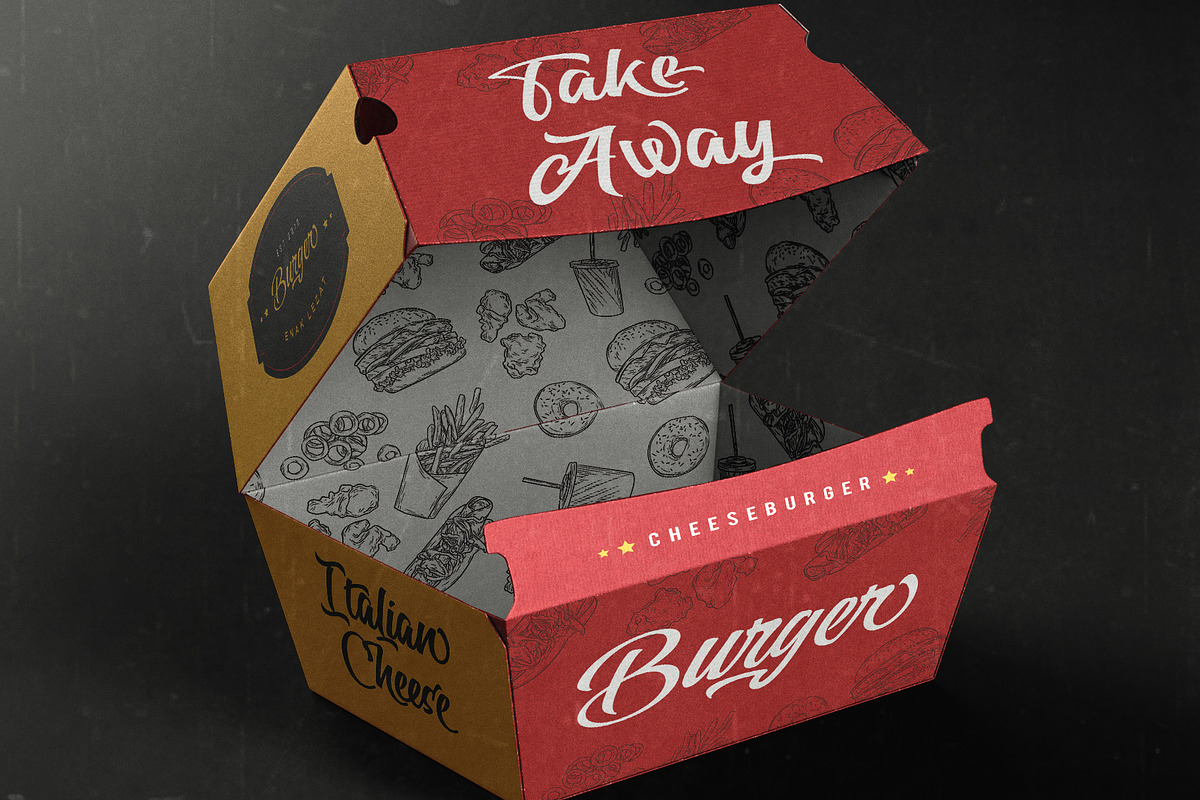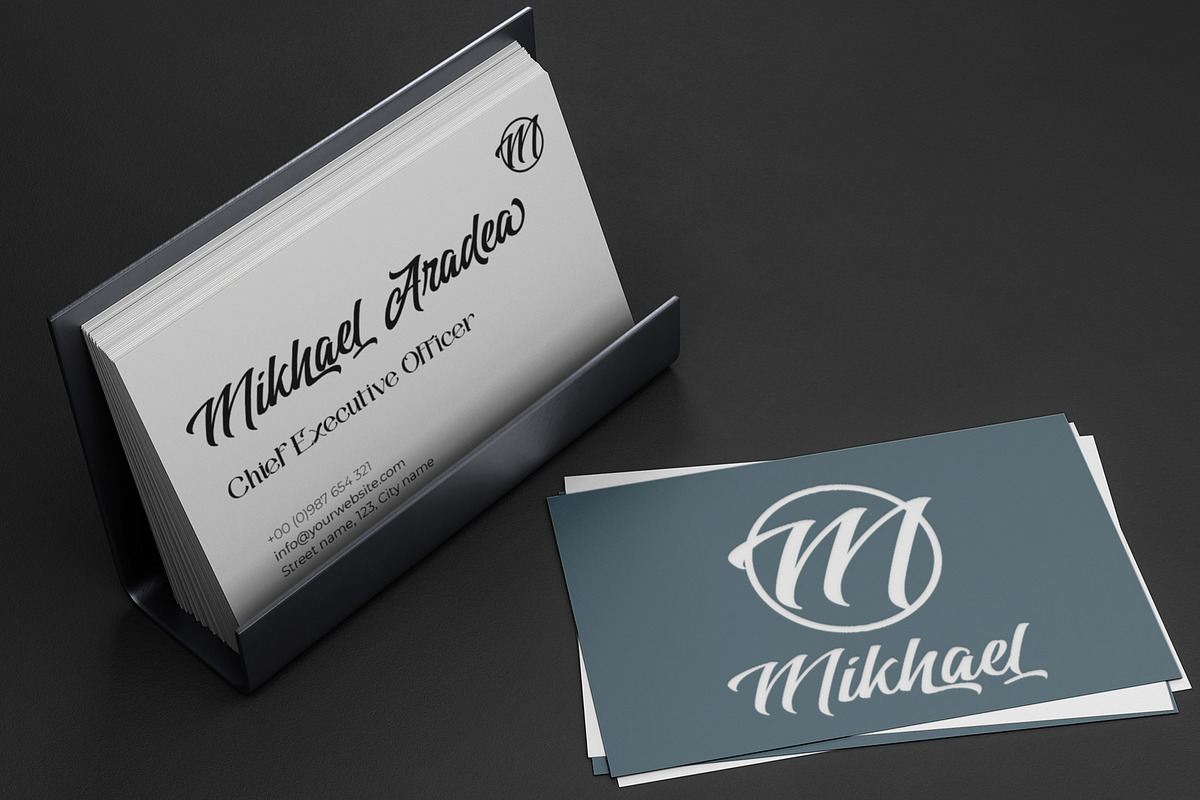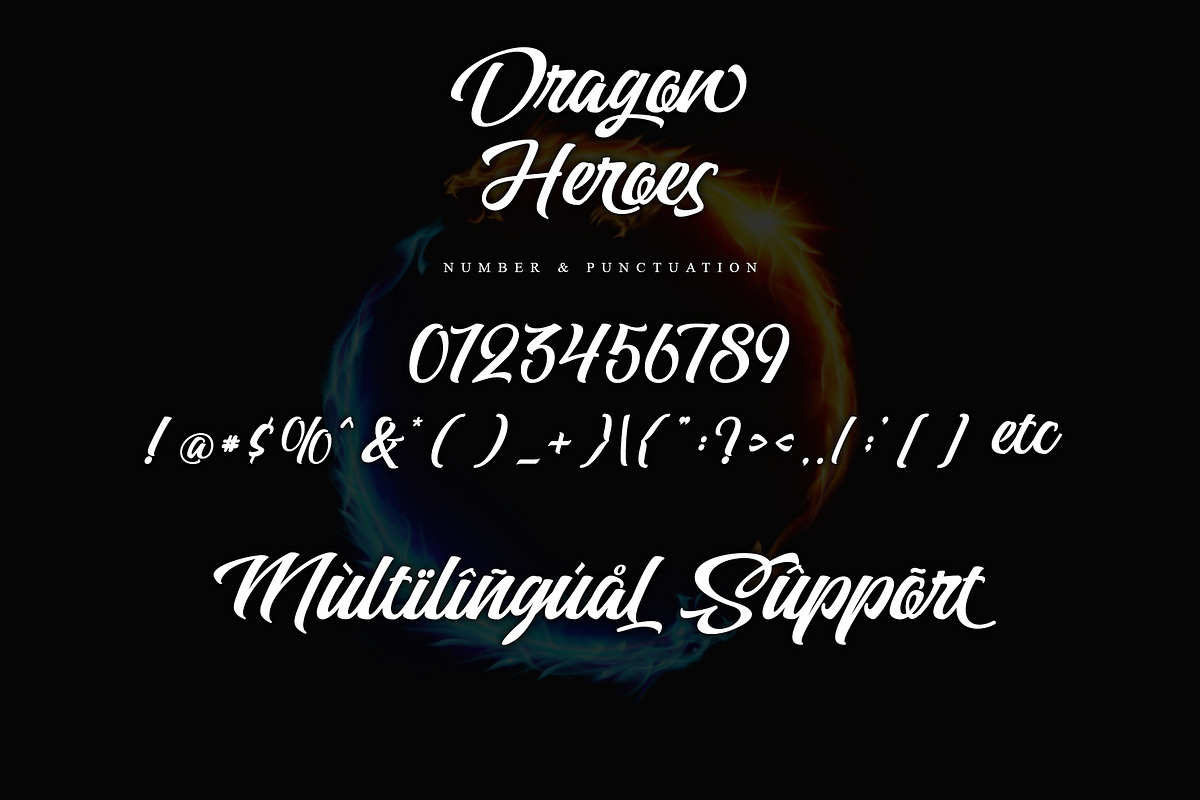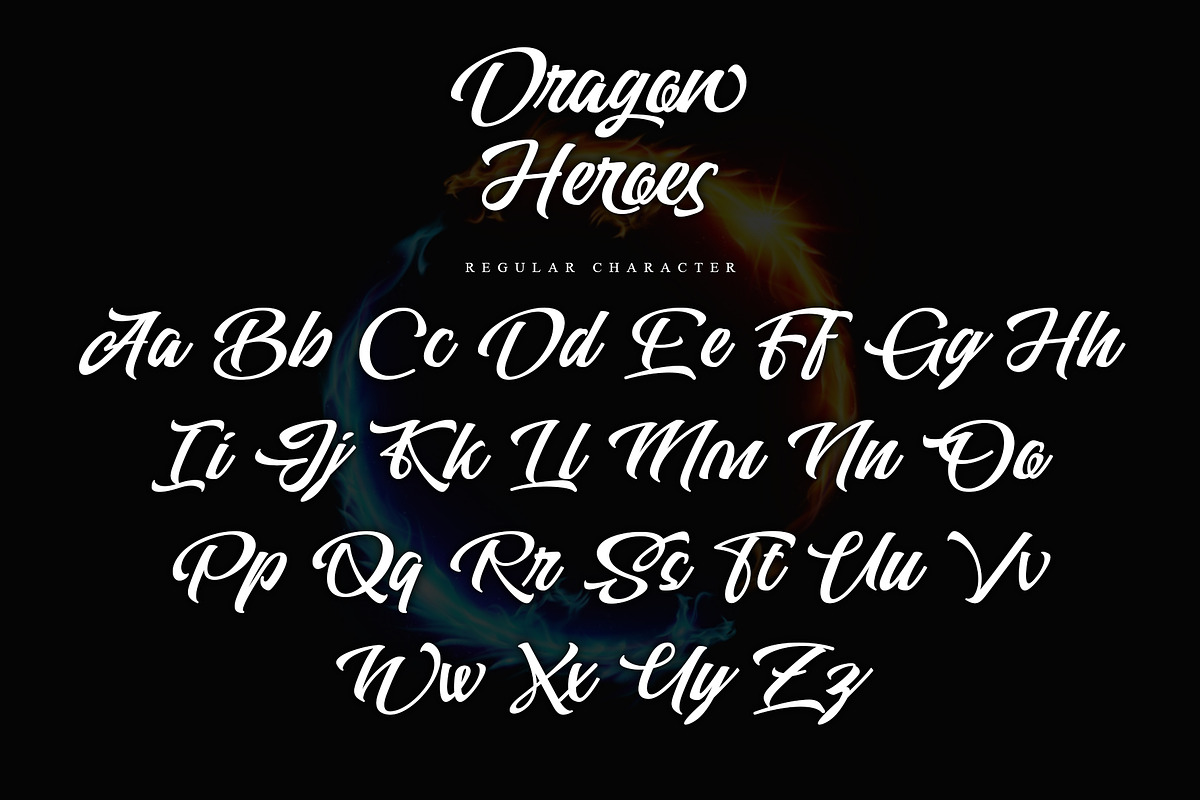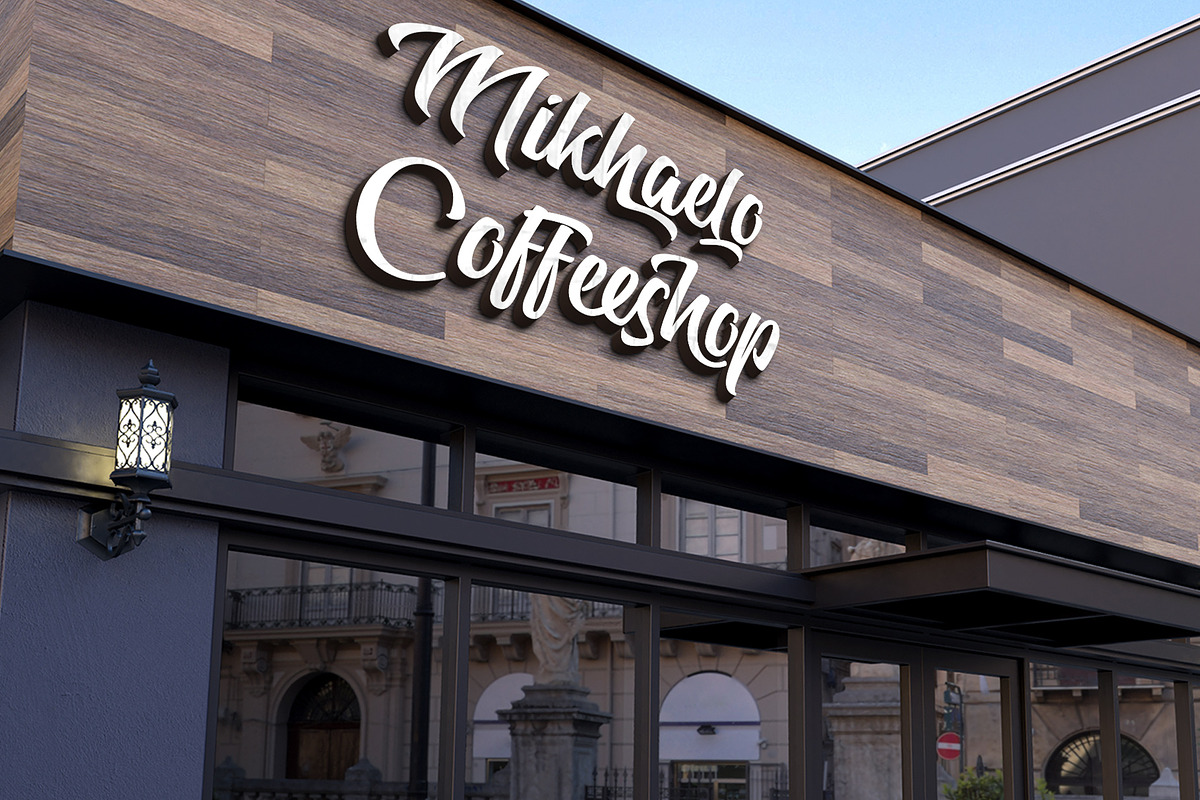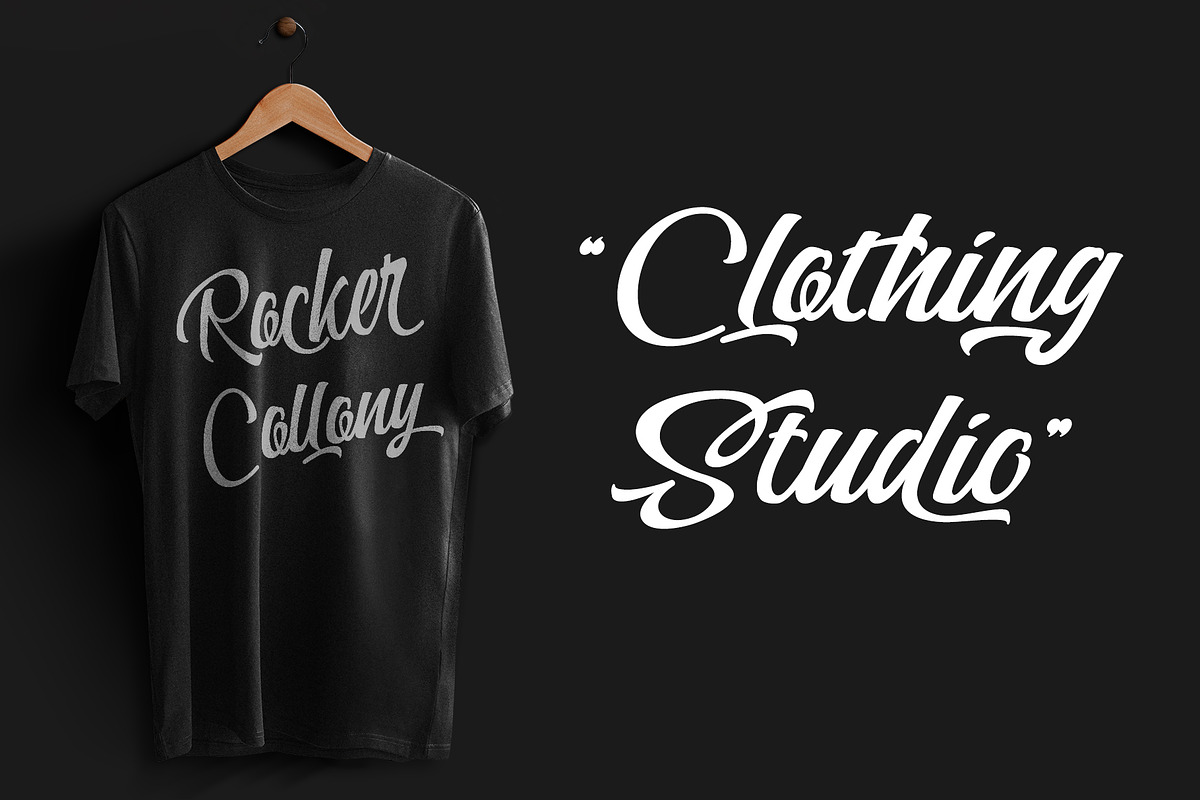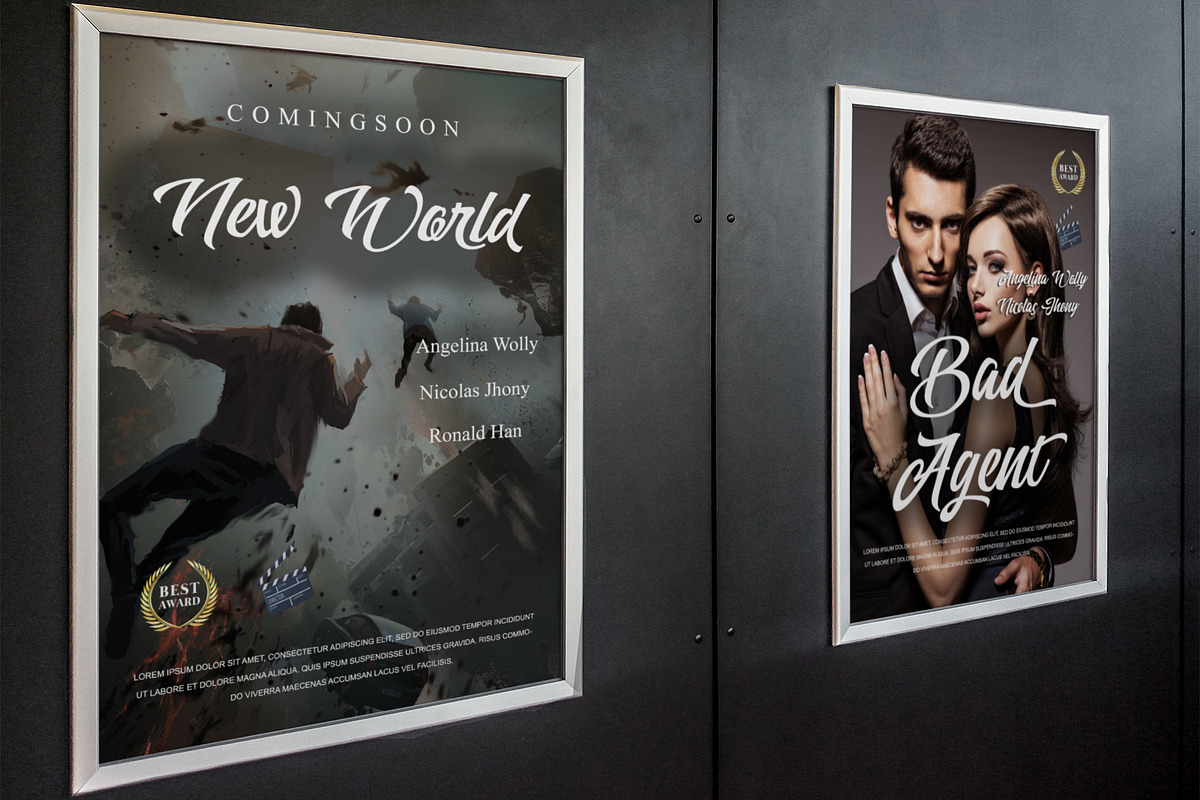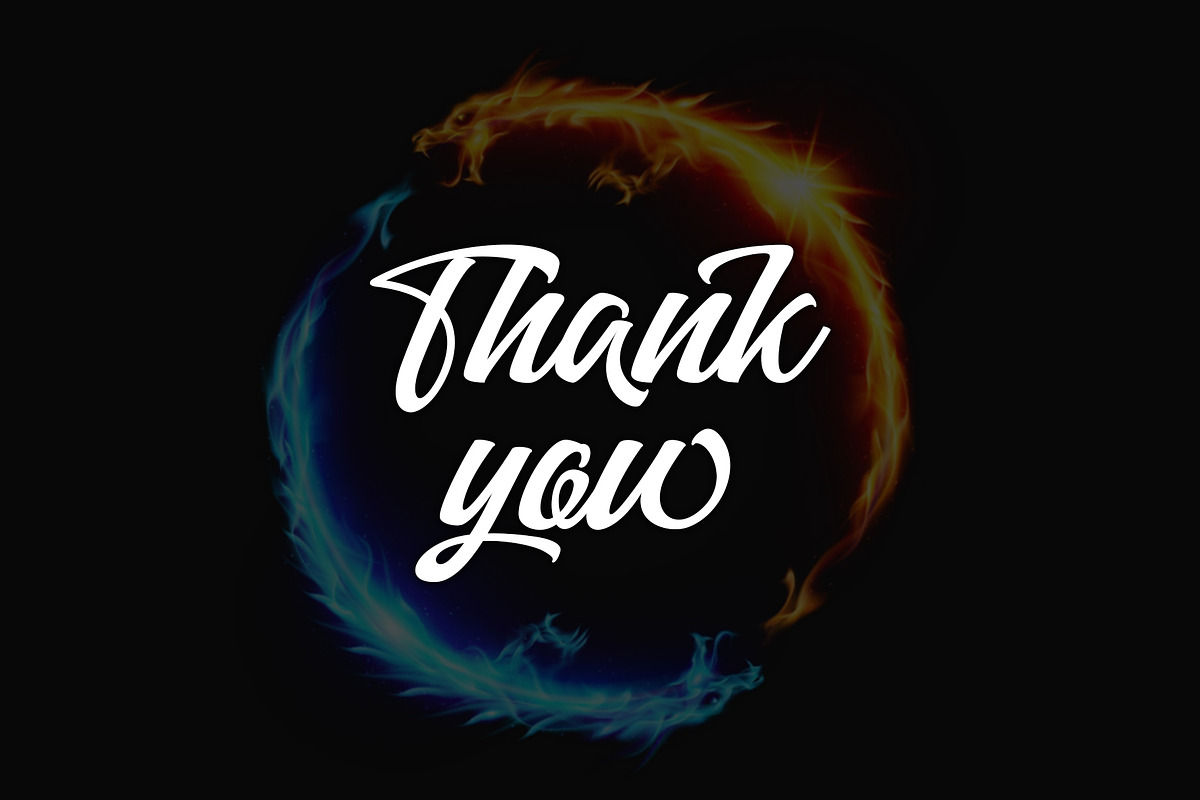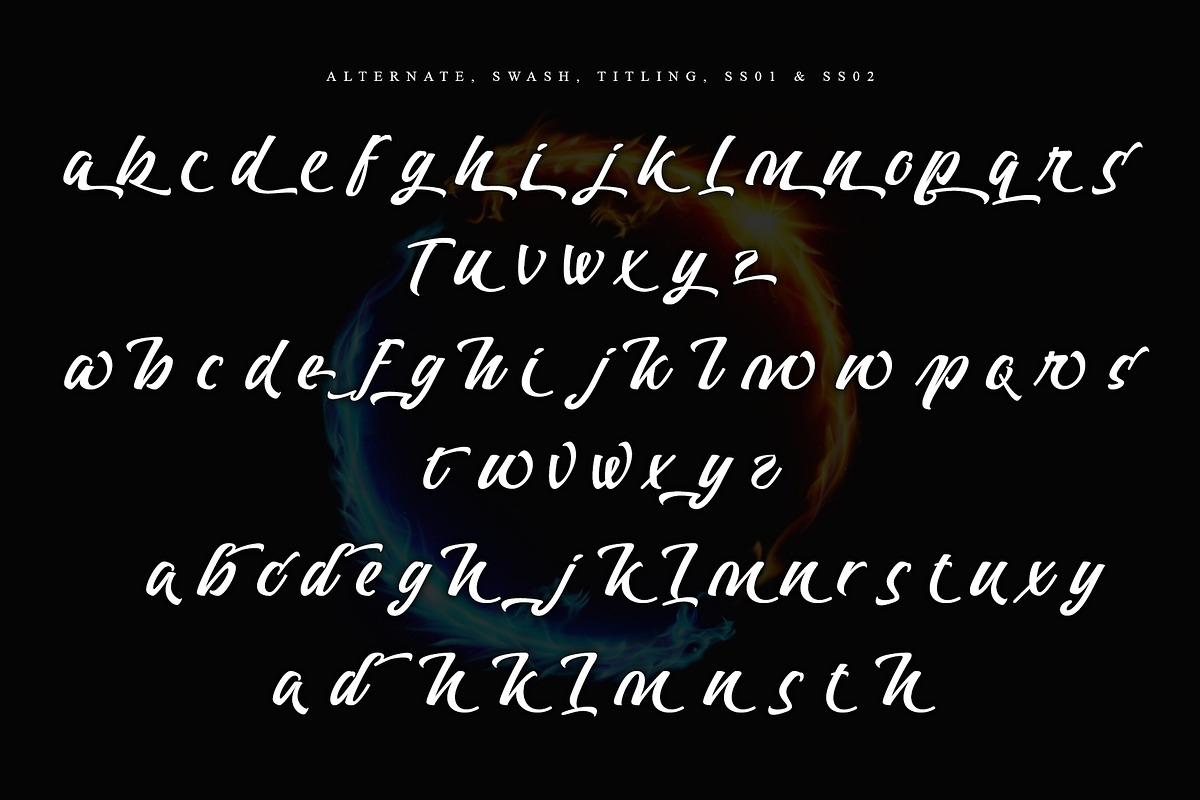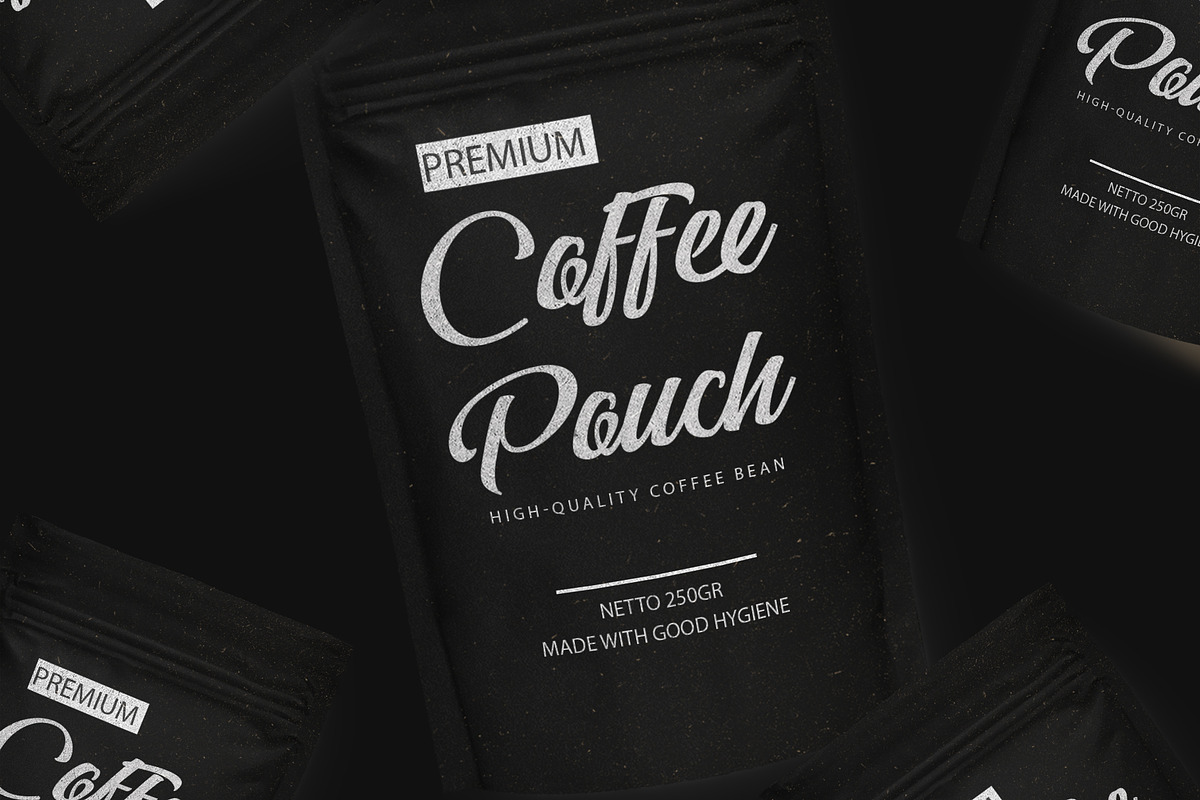
Dragon Heroes
Dragon Heroes is a modern bold script font, carefully handcrafted to become a true favorite. Its casual charm makes it appear wonderfully down-to-earth, readable, and, ultimately, incredibly versatile. This font will look outstanding in any context, whether used on busy backgrounds or as a standalone headline! This font is PUA encoded, which means you can easily access all of the glyphs and swashes!
- Support multilingual; ä ö ü Ä Ö Ü ß ¿ ¡
- lowercase and uppercase letters
- Alternate, swash, tiling, ss01, ss02, & ligature -Simple installations